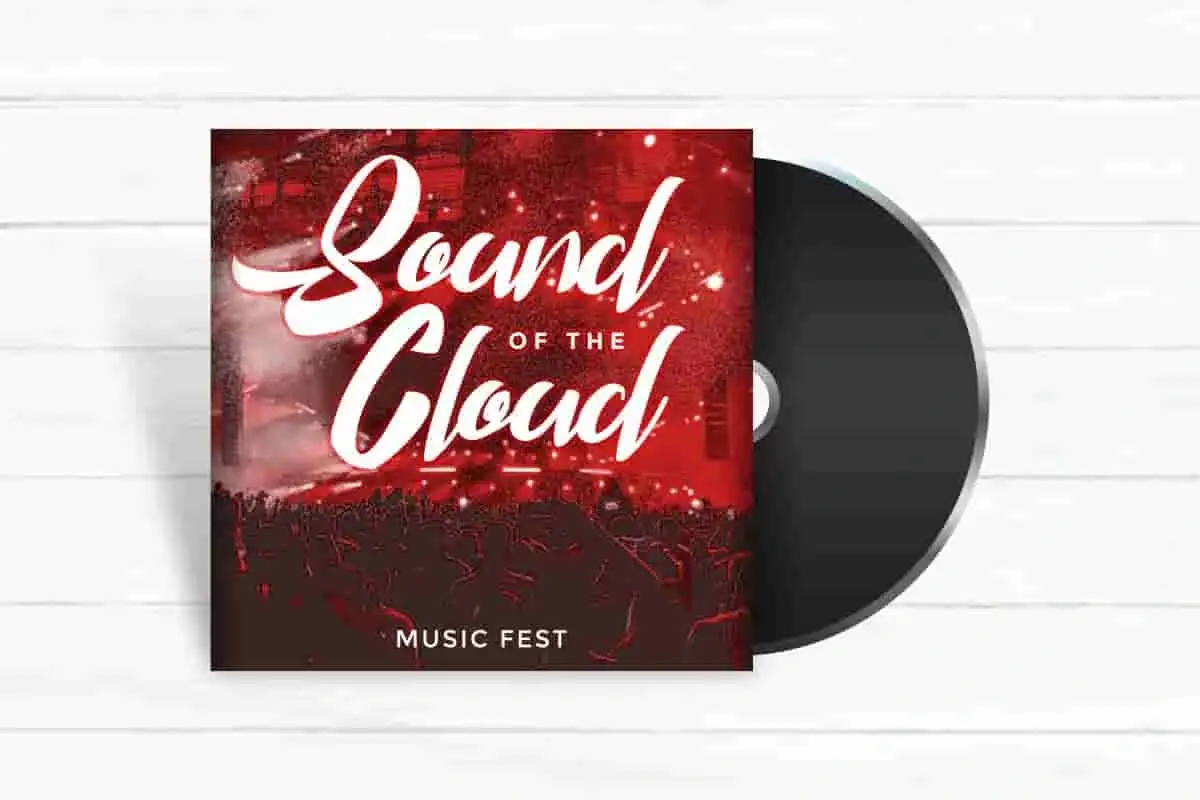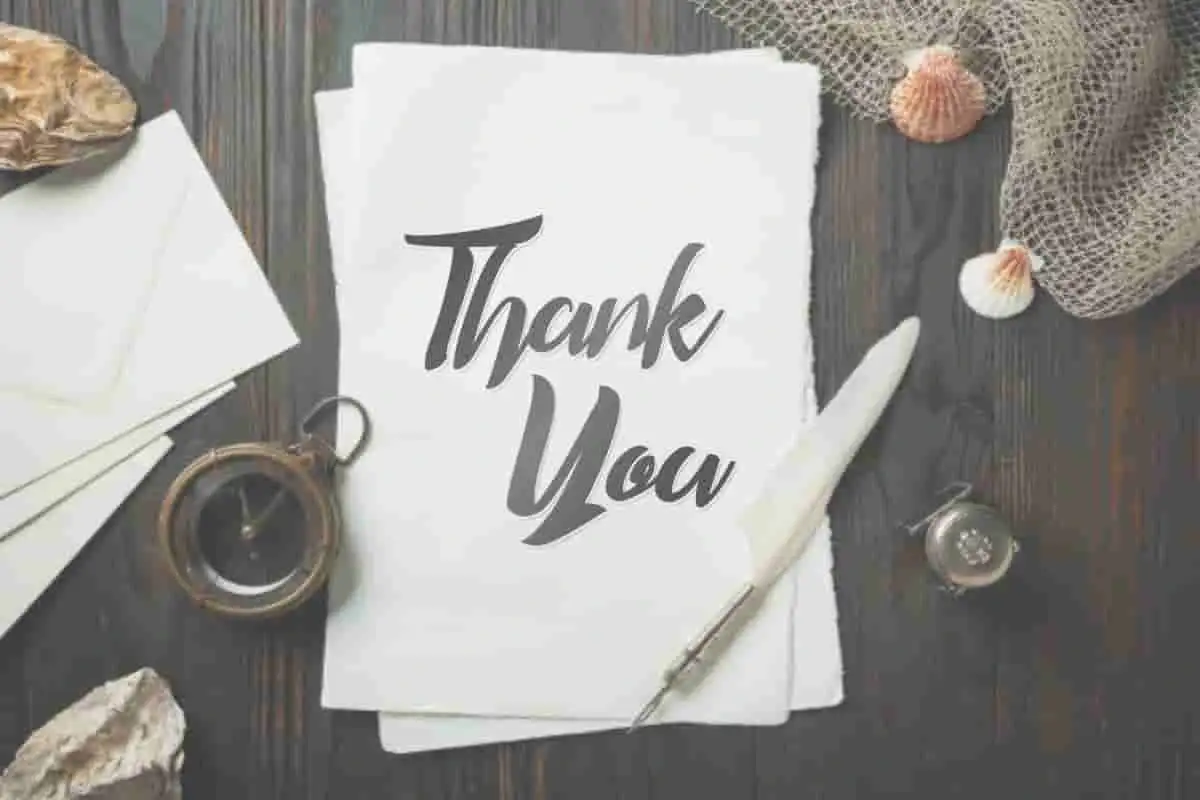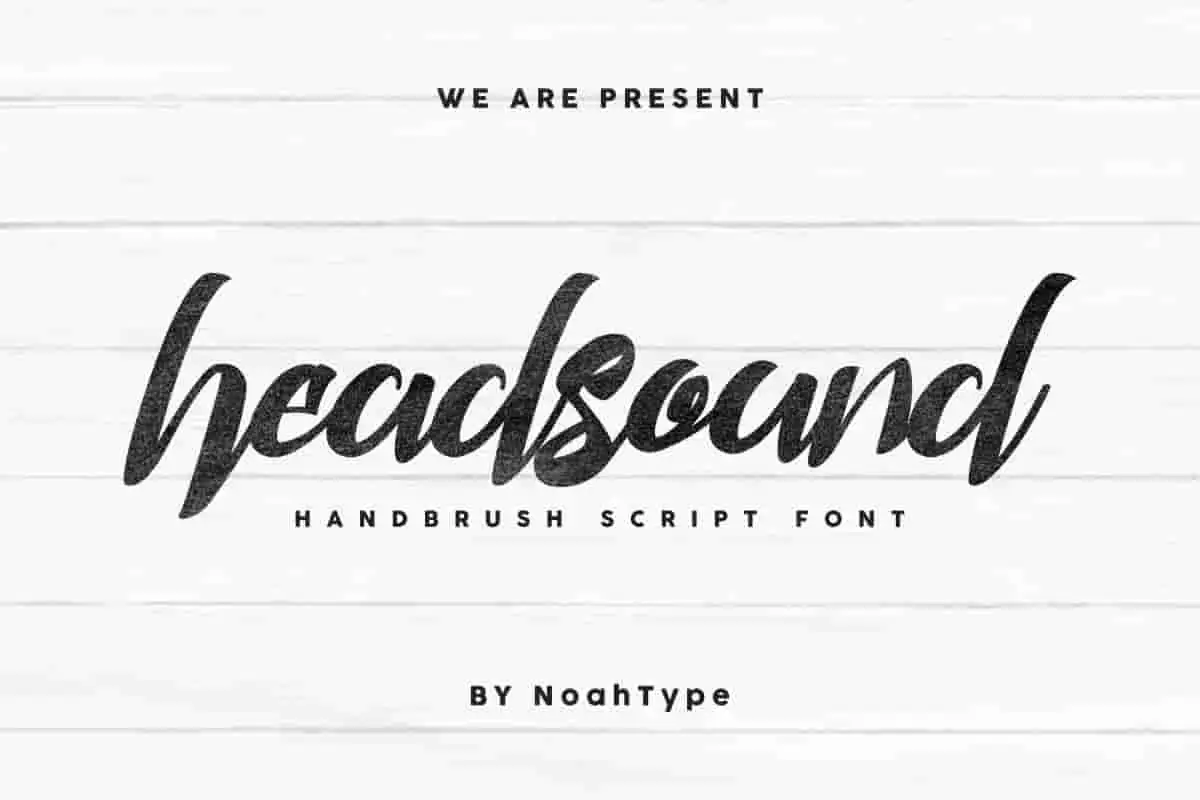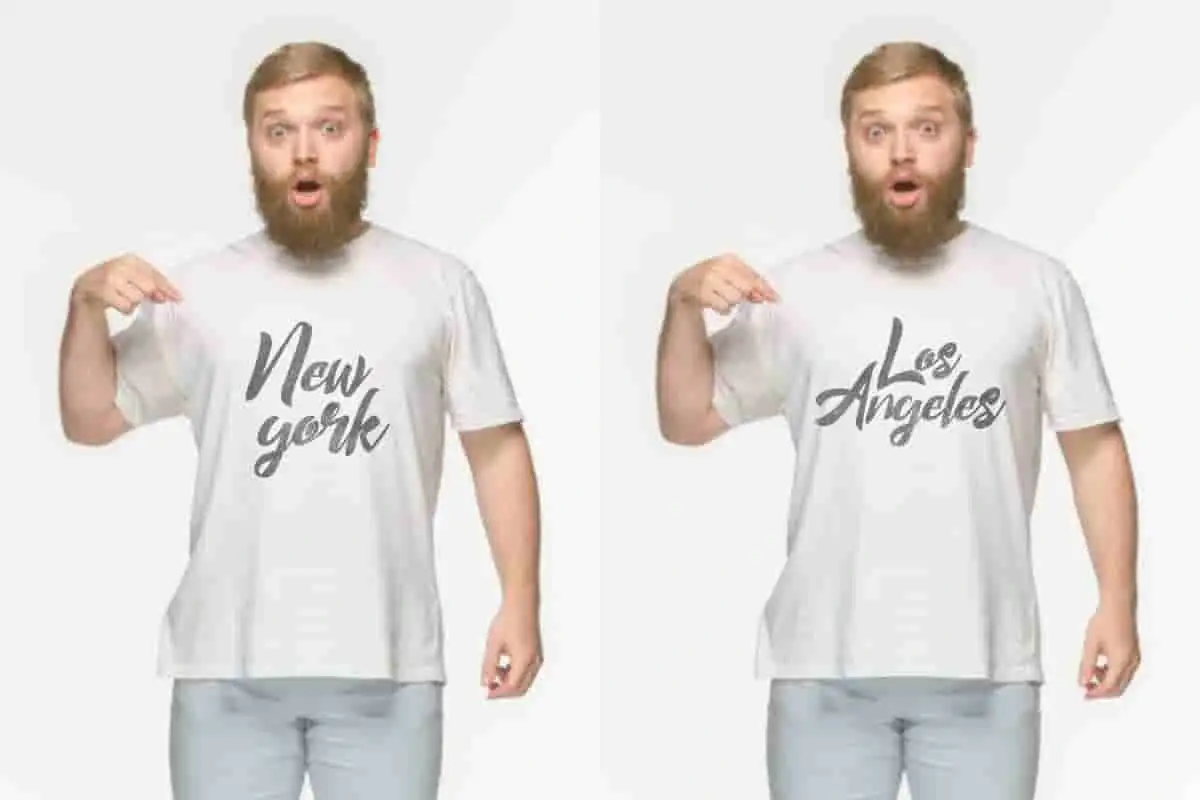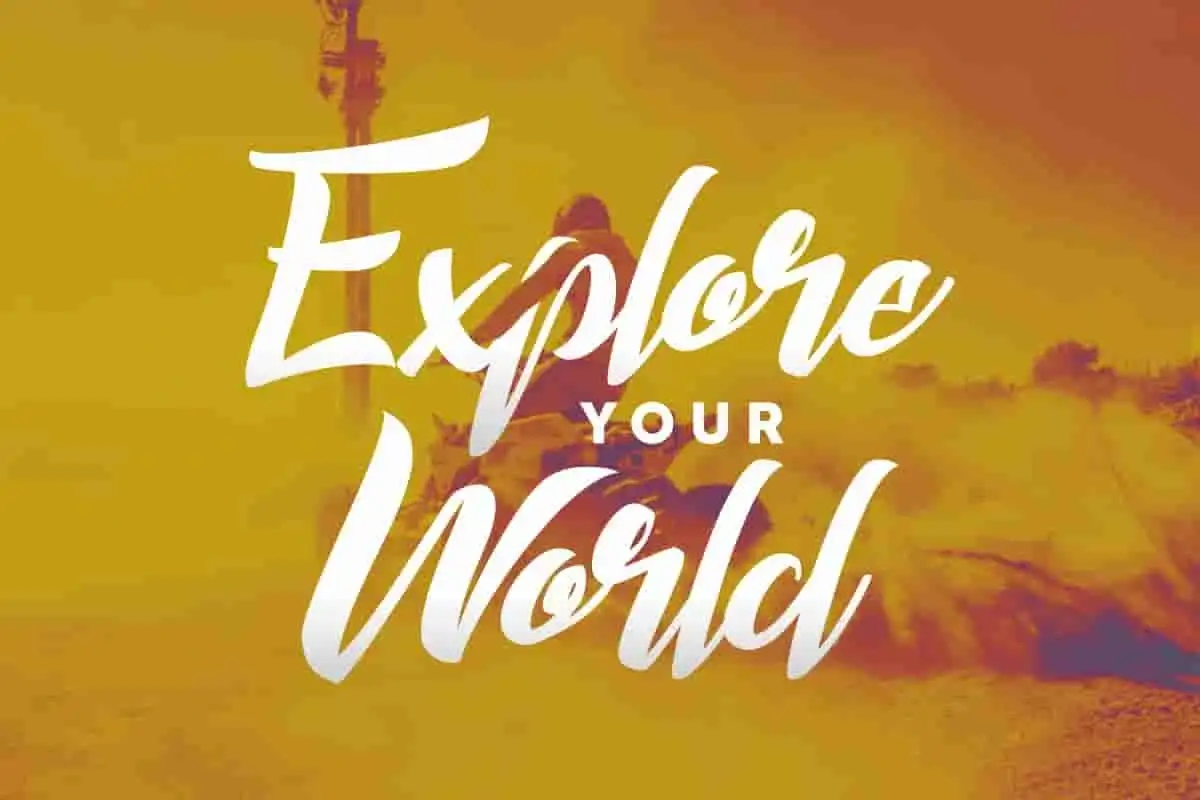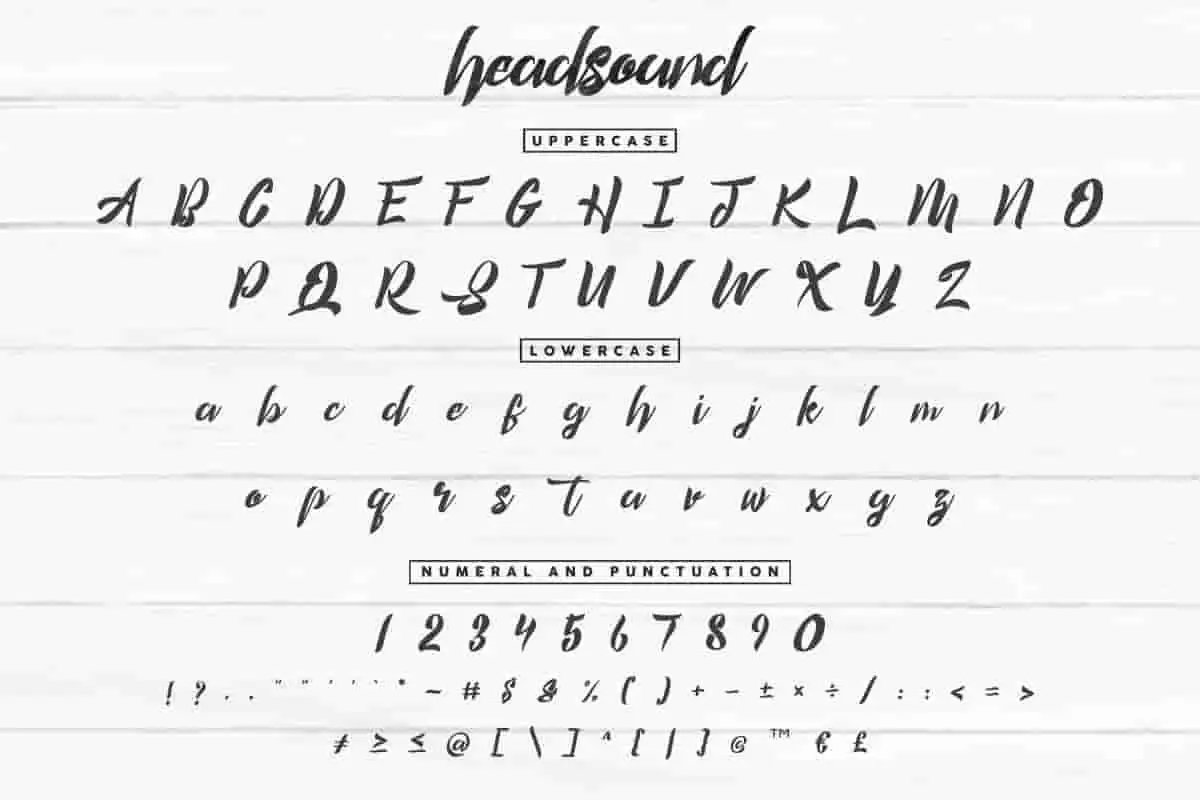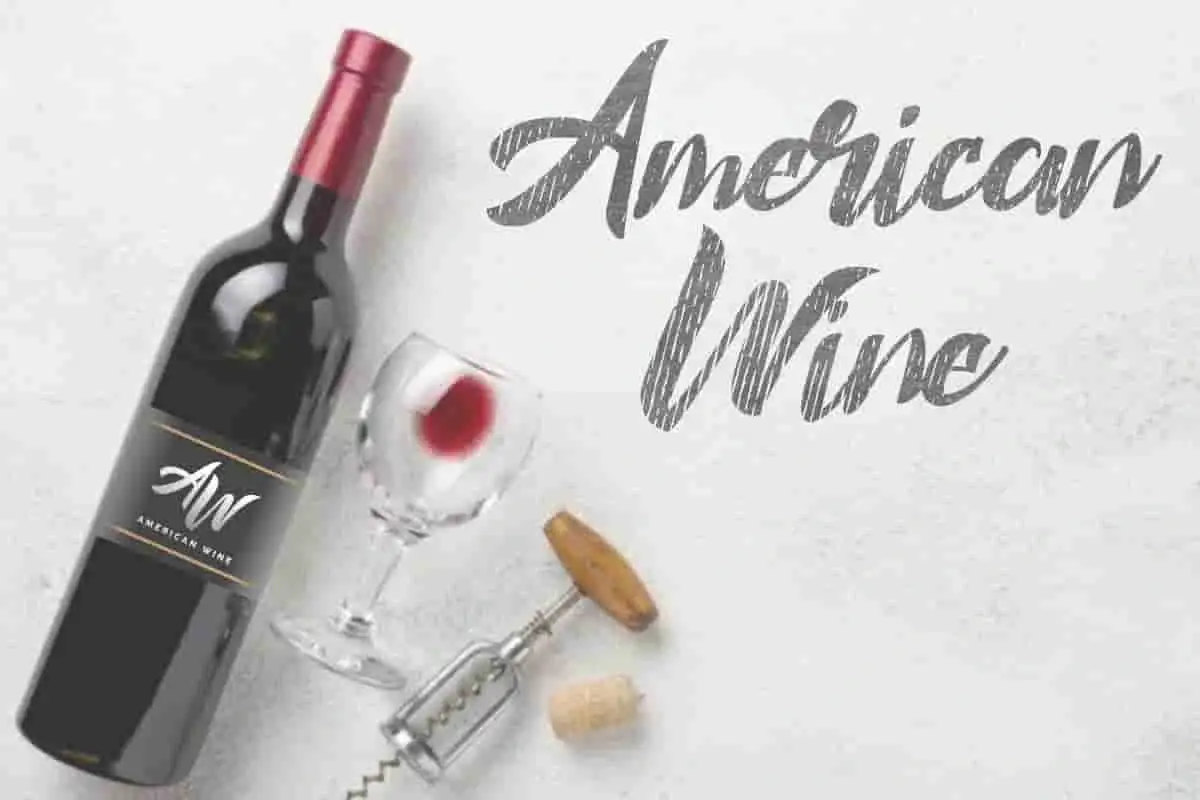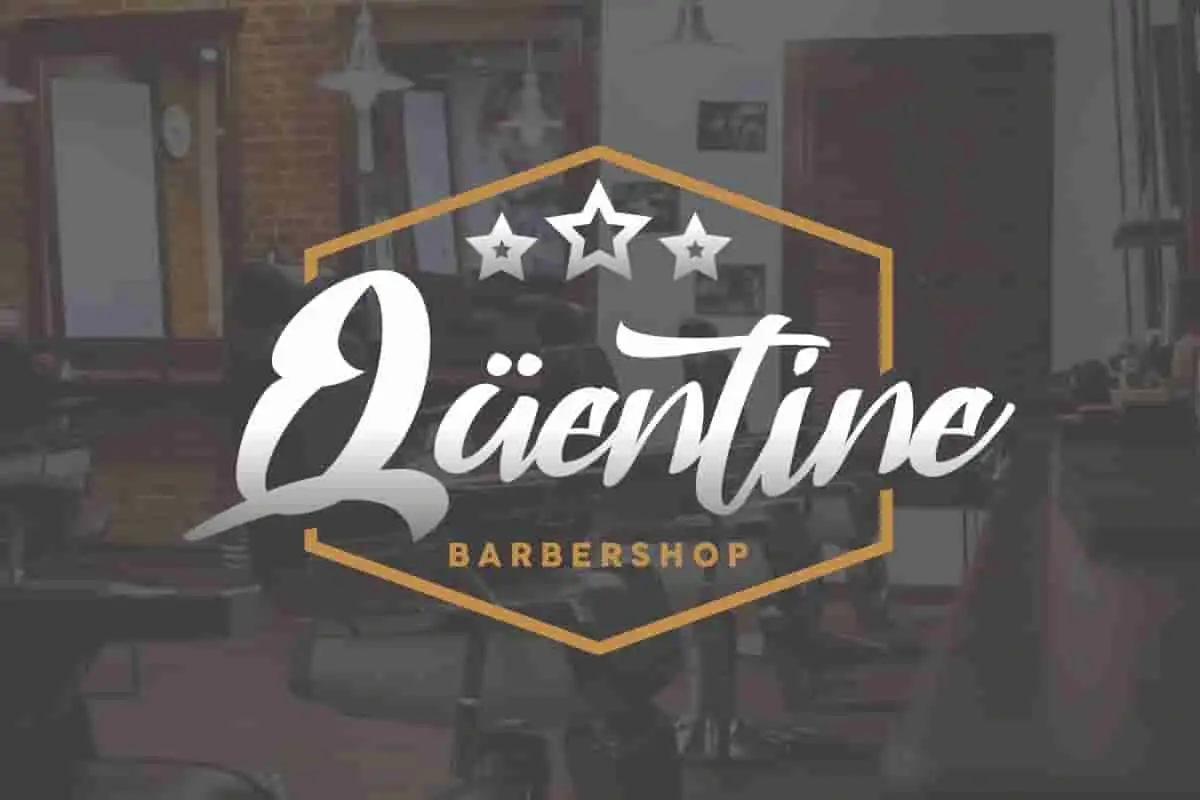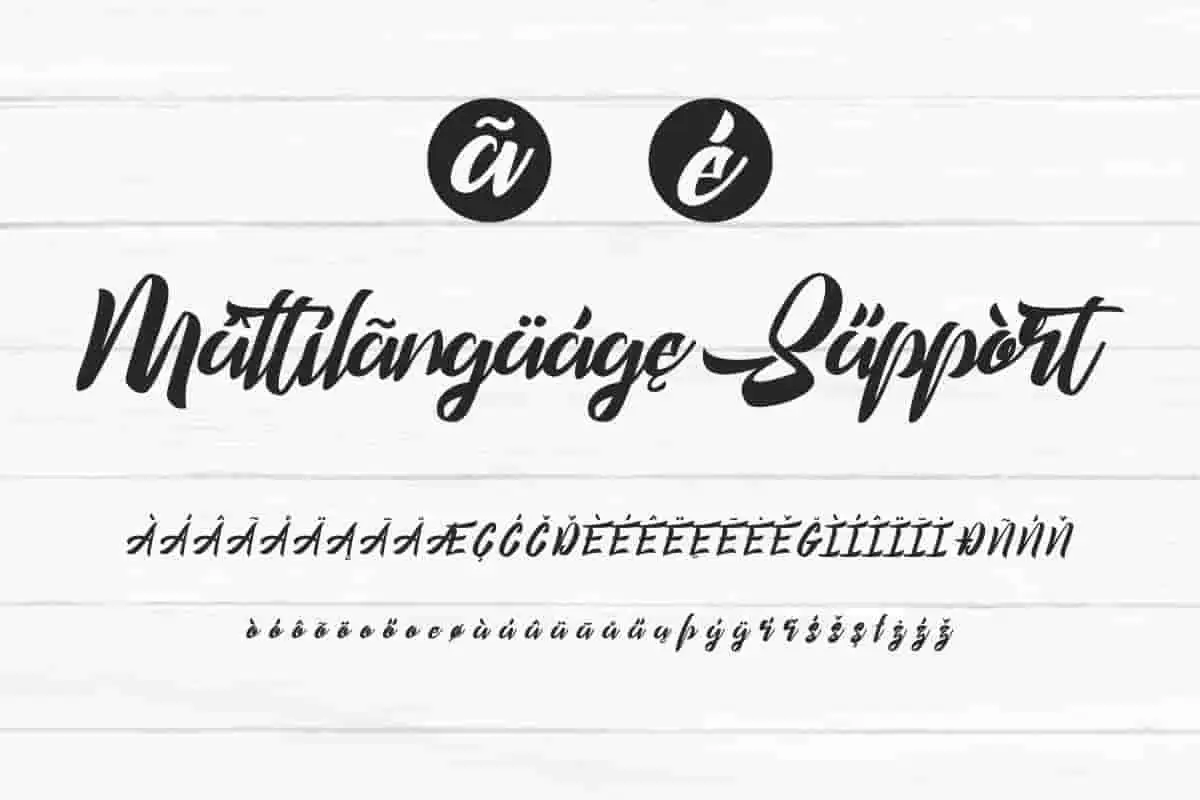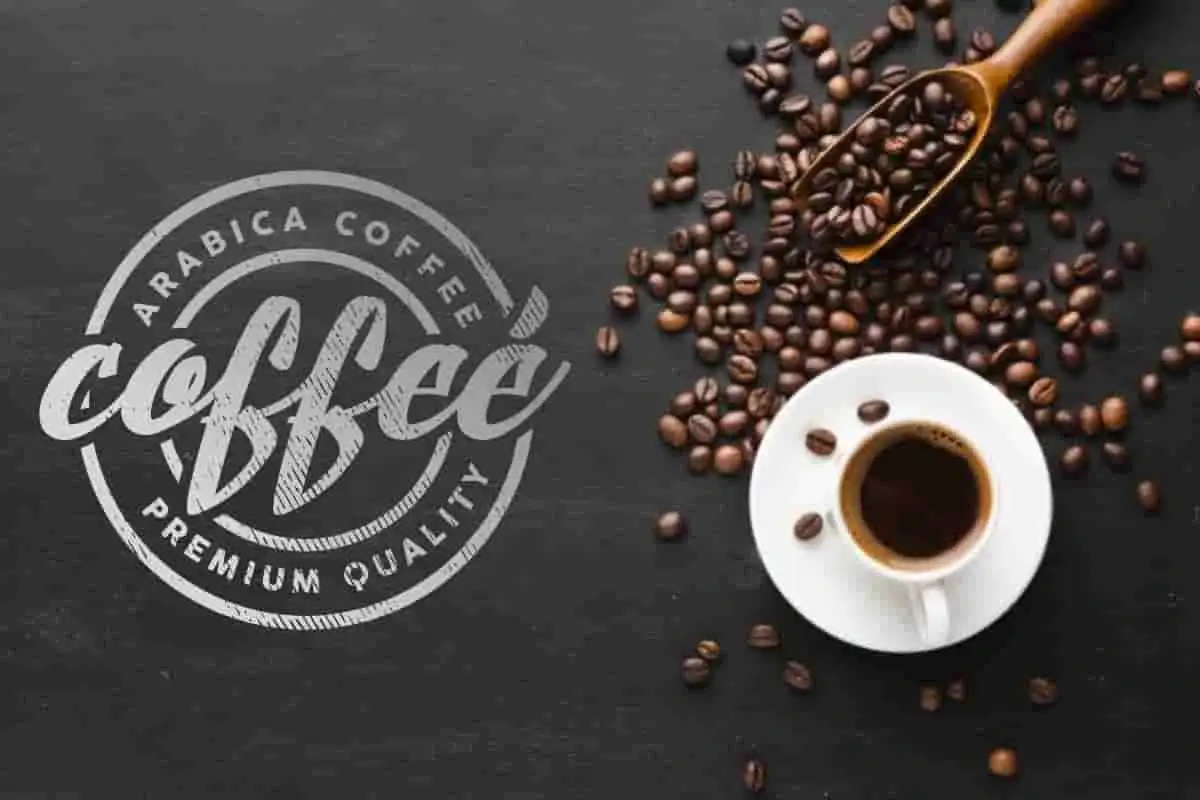
Headsound HandBrush Script Font
Headsound is a calligraphy hand brush font
Headsound Font is a calligraphy hand brush font with a simple and unique style. This font is crafted carefully in every its single scratch, created to look as close to a natural handwritten script so that it can create the perfect combination on each glyph. When we make this font, we really want to create a touch that is so free-flowing that it gives a natural impression on its use later. For example, if you want letter ‘s’ that has a flow sketch with letter ‘t’, you can find it in ‘st’ ligature glyph (just type in the text form below for trying). This awesome script is for anyone who are needing of elegance and stylish for their designs.
Headsound Font includes full set of Uppercase and Lowercase Basic Characters, Numerals and Punctuation. Also it contains ligatures and a lot of stylistic alternates characters to perfectly make natural calligraphy look that add more beautiful and aesthetic fonts to perfect your extraordinary project.
Headsound Font supports multilingual languages (including multiple currency symbols). With a simple installation, Headsound Font will be ready to use both on Windows machine or Mac. In order to use alternative characters, usually we just need to block the end letters and select alternative letters on glyphs option. It really common in almost any software (Character Map for Windows and Font Book for Mac.). It work well on Adobe software such as Illustrator, Photoshop and several other software.